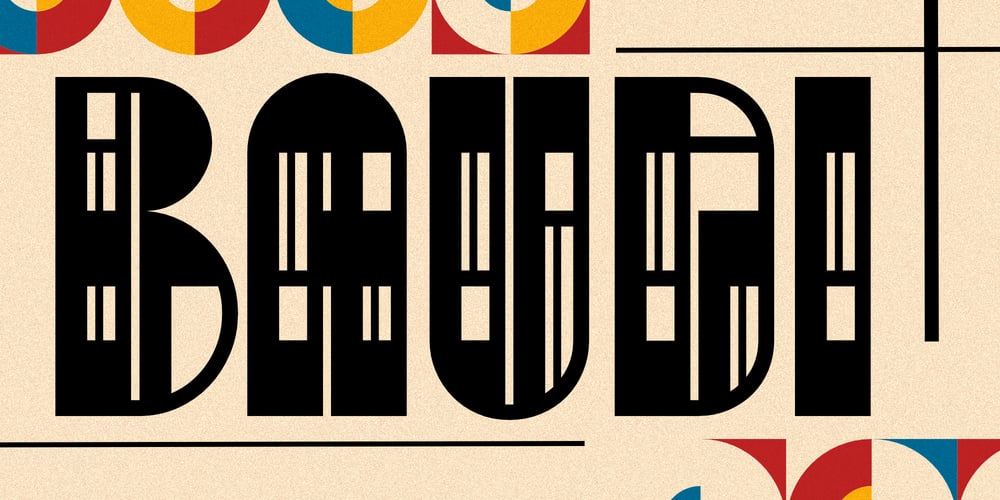
Baudi Font Family was designed by Michael Kovacevich and published by MKGD. Baudi contains 1 styles and family package options. Bauhaus is a style of art that was born in Weimar Germany in the early part of the 20th century. The font that bears the bauhaus name was constructed in accordance with this style by making use of spheres and squares with little or no added flourishes. Since this typeface was already minimalistic in appearance, it was difficult to produce a similarly styled font. So I went back to bauhaus’ architectural roots for inspiration. The result contains a more detailed composition, but is still focused on the basic aesthetics that continue to make bauhaus a popular art form.Baudi has a glyph count of 388 and supports the following languagesAfrikaans, Albanian, Asu, Basque, Bemba, Bena, Bosnian, Catalan, Chiga, Colognian, Cornish, Croatian, Czech, Danish, Embu, English, Esperanto, Estonian, Faroese, Filipino, Finnish, French, Friulian, Galician, German, Gusii, Hungarian, Icelandic, Indonesian, Irish, Italian, Kabuverdianu, Kalaallisut, Kalenjin, Kamba, Kikuyu, Kinyarwanda, Latvian, Lithuanian, Low German, Lower Sorbian, Luo, Luxembourgish, Luyia, Machame, Makhuwa-Meetto, Makonde, Malagasy, Malay, Maltese, Manx, Meru, Morisyen, North Ndebele, Norwegian Bokmål, Norwegian Nynorsk, Nyankole, Oromo, Polish, Portuguese, Romanian, Romansh, Rombo, Rundi, Rwa, Samburu, Sango, Sangu, Scottish Gaelic, Sena, Shambala, Shona, Slovak, Slovenian, Soga, Somali, Spanish, Swahili, Swedish, Swiss German, Taita, Teso, Turkmen, Upper Sorbian, Vunjo, Walser, Zulu